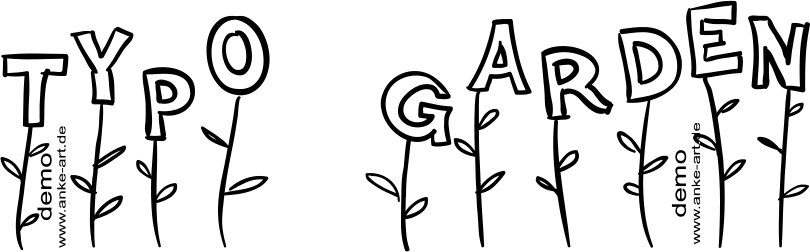
Typo Garden Font
Typo Garden is cartoonish, illustrated, and cute. It comes from the floral font family. You have both uppercase and lowercase letters, in addition to numbers, but there is no punctuation included in the character collect…
Typo Garden is cartoonish, illustrated, and cute. It comes from the floral font family. You have both uppercase and lowercase letters, in addition to numbers, but there is no punctuation included in the character collection.
As for the usage of Typo Garden Demo, you can use it in cartoons, kids’ and comic books, apparel design, apps, games, and so on!